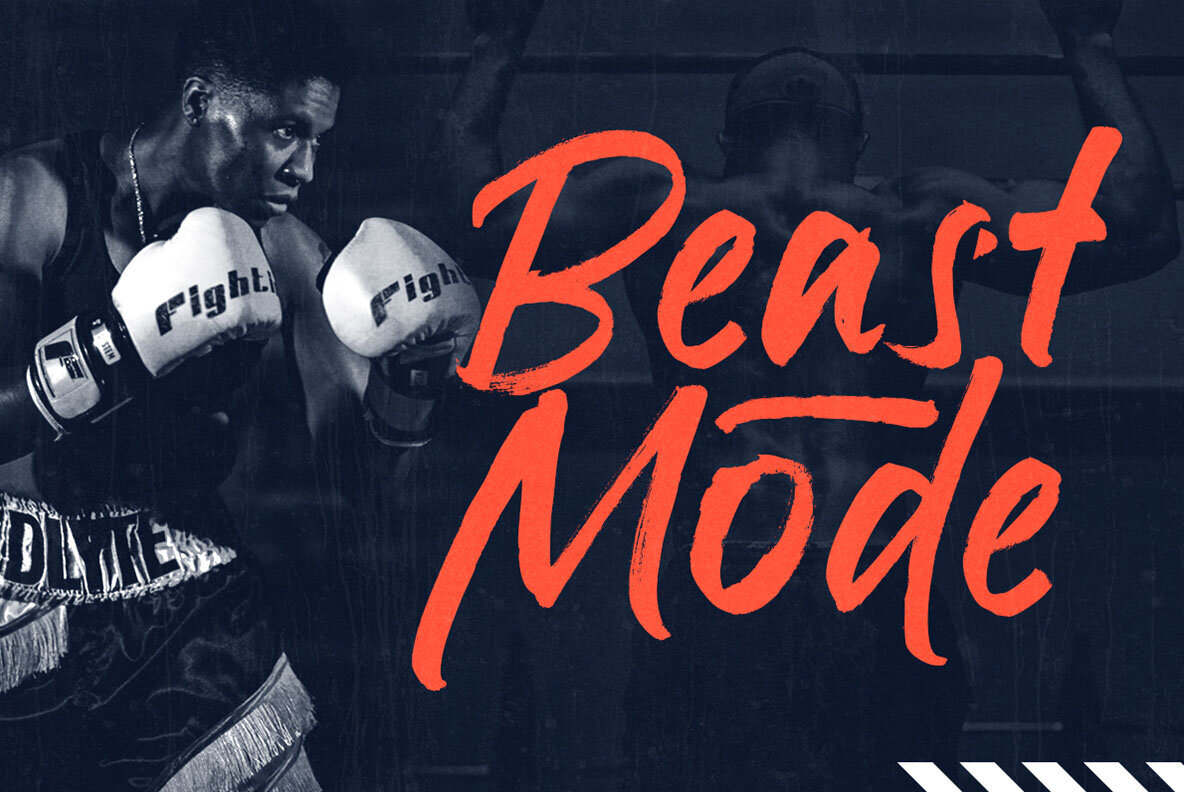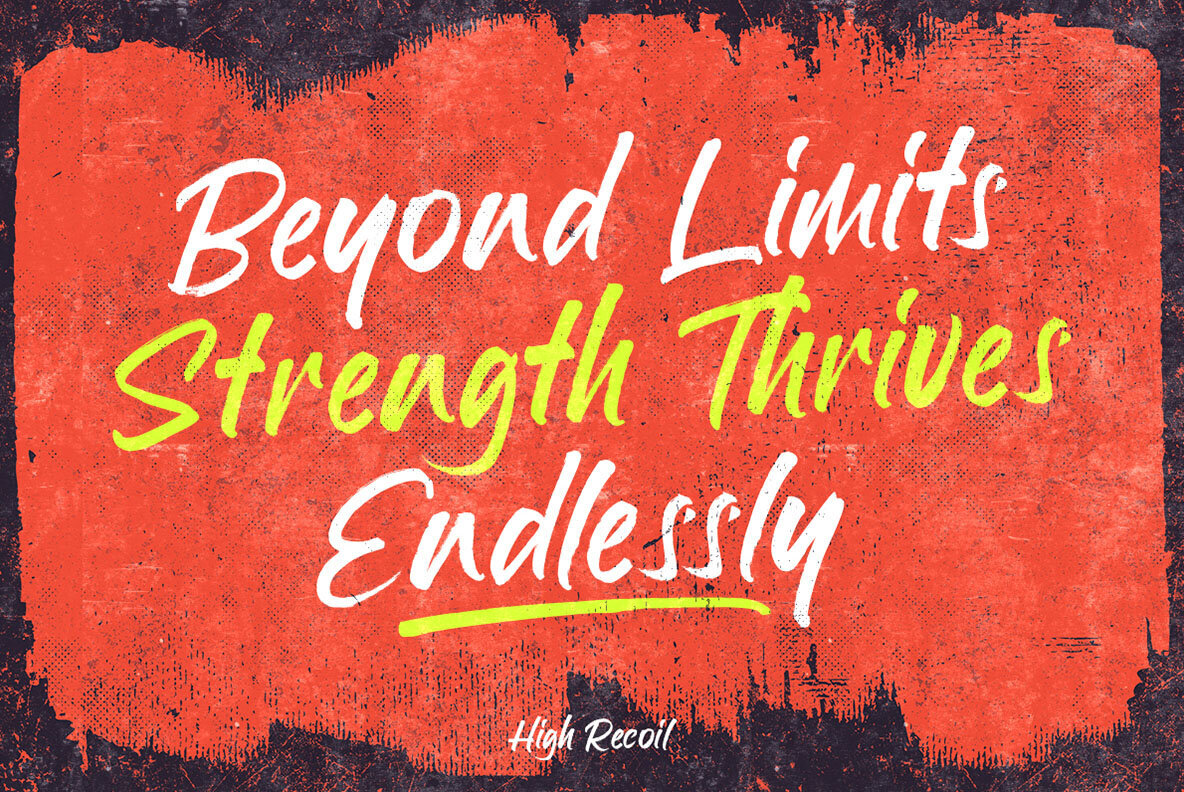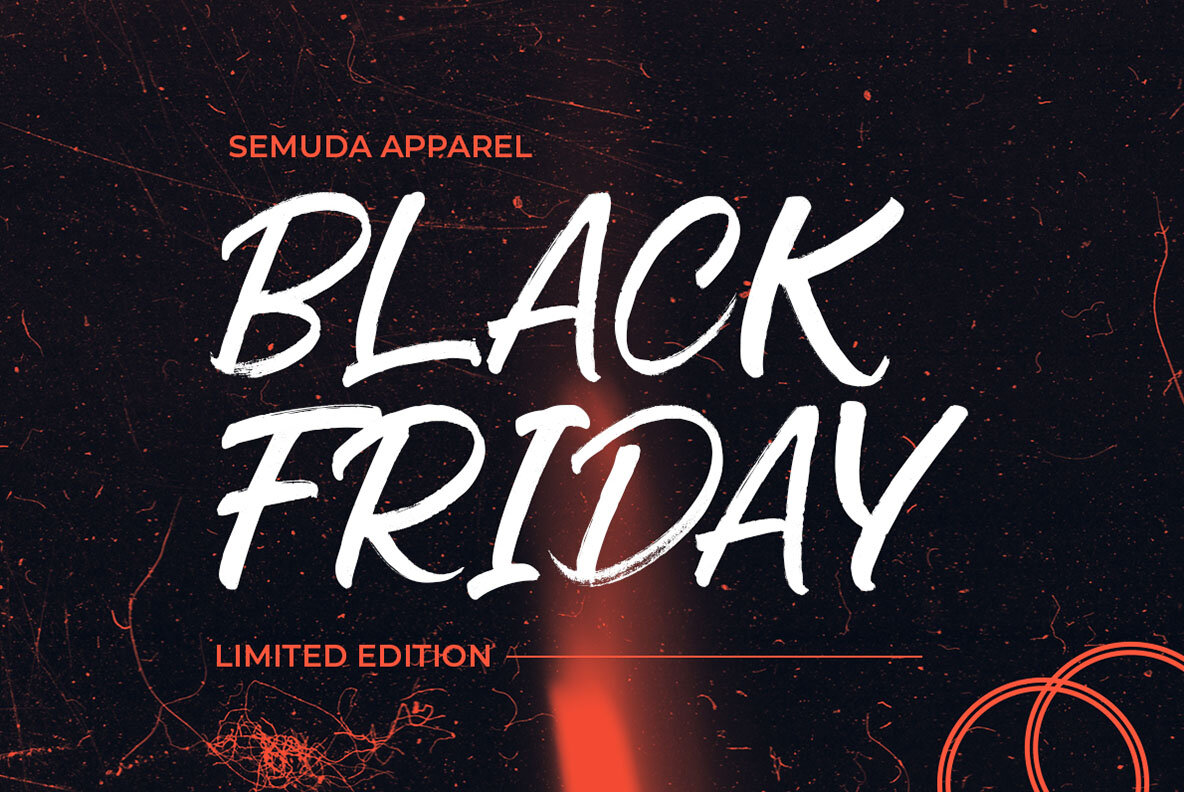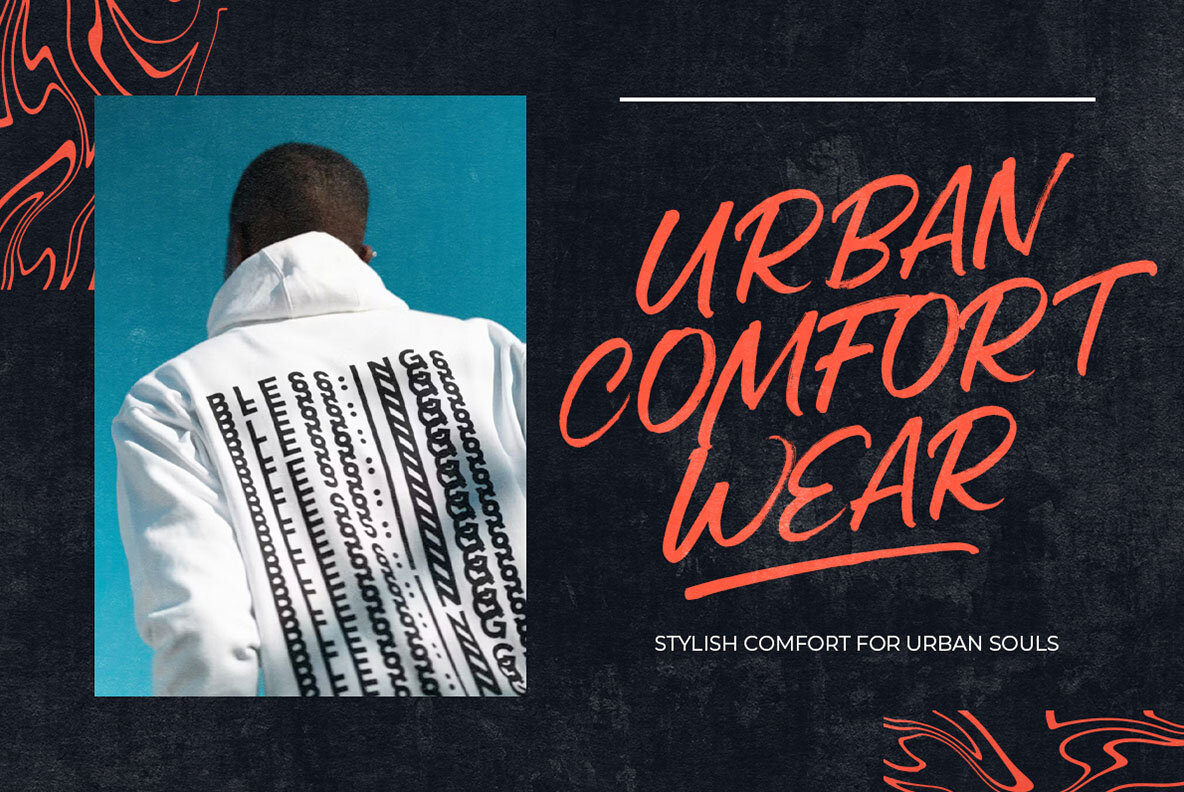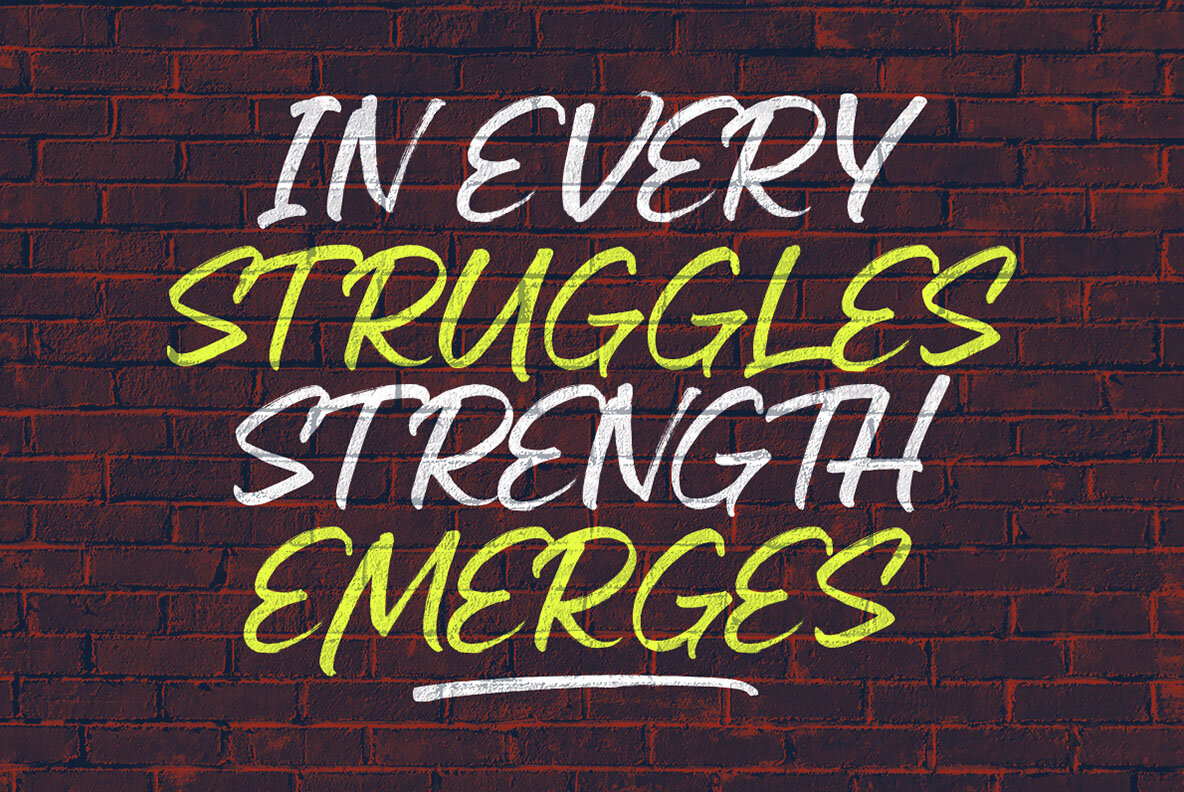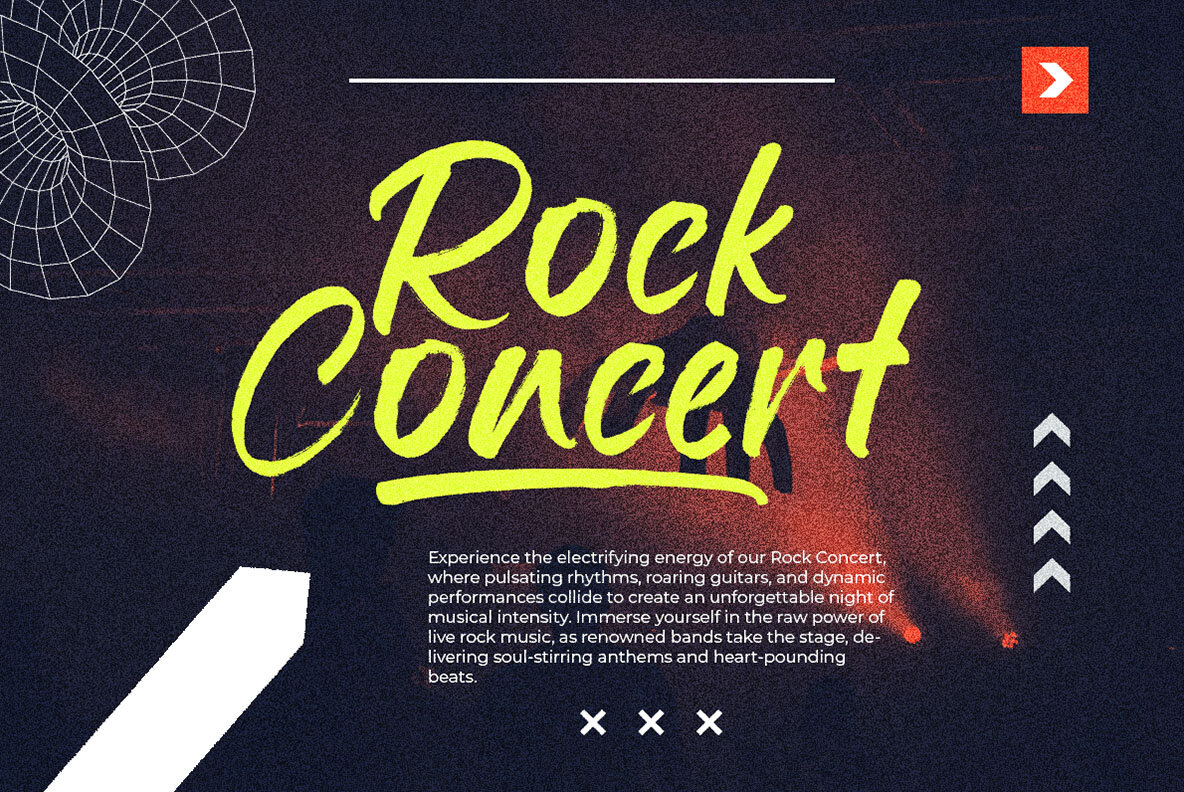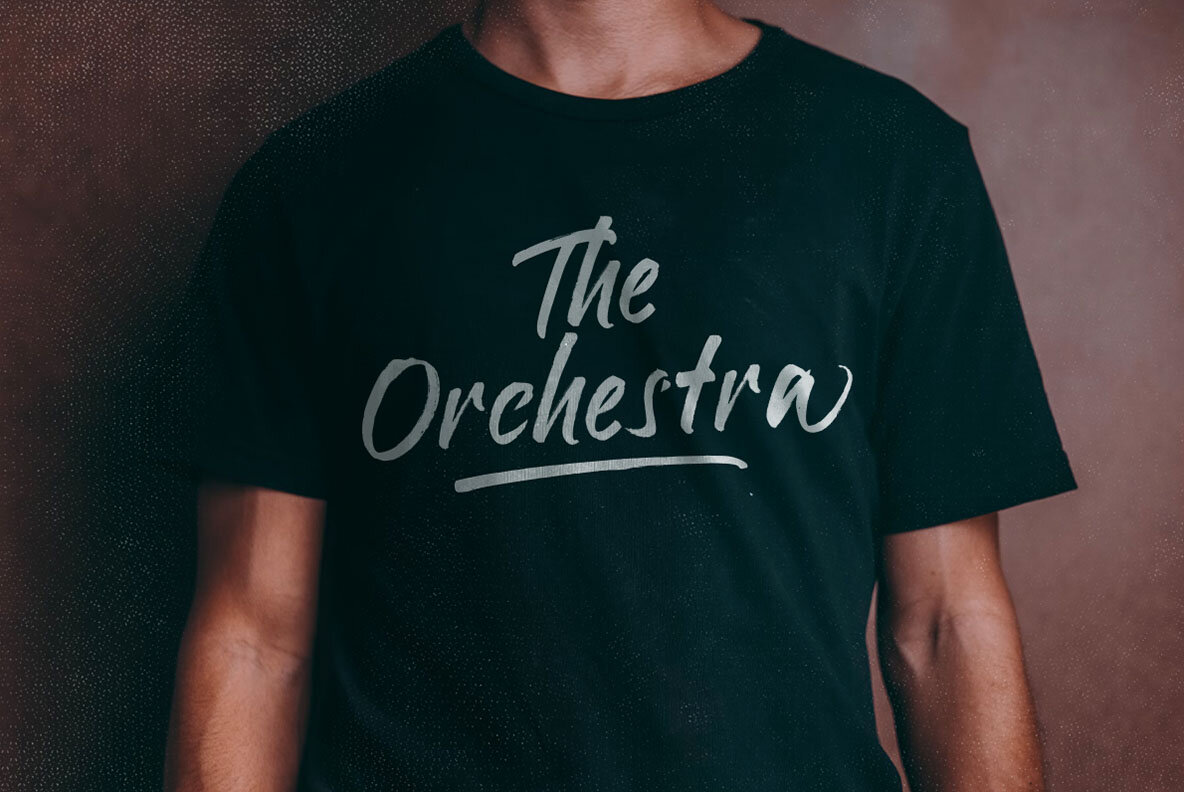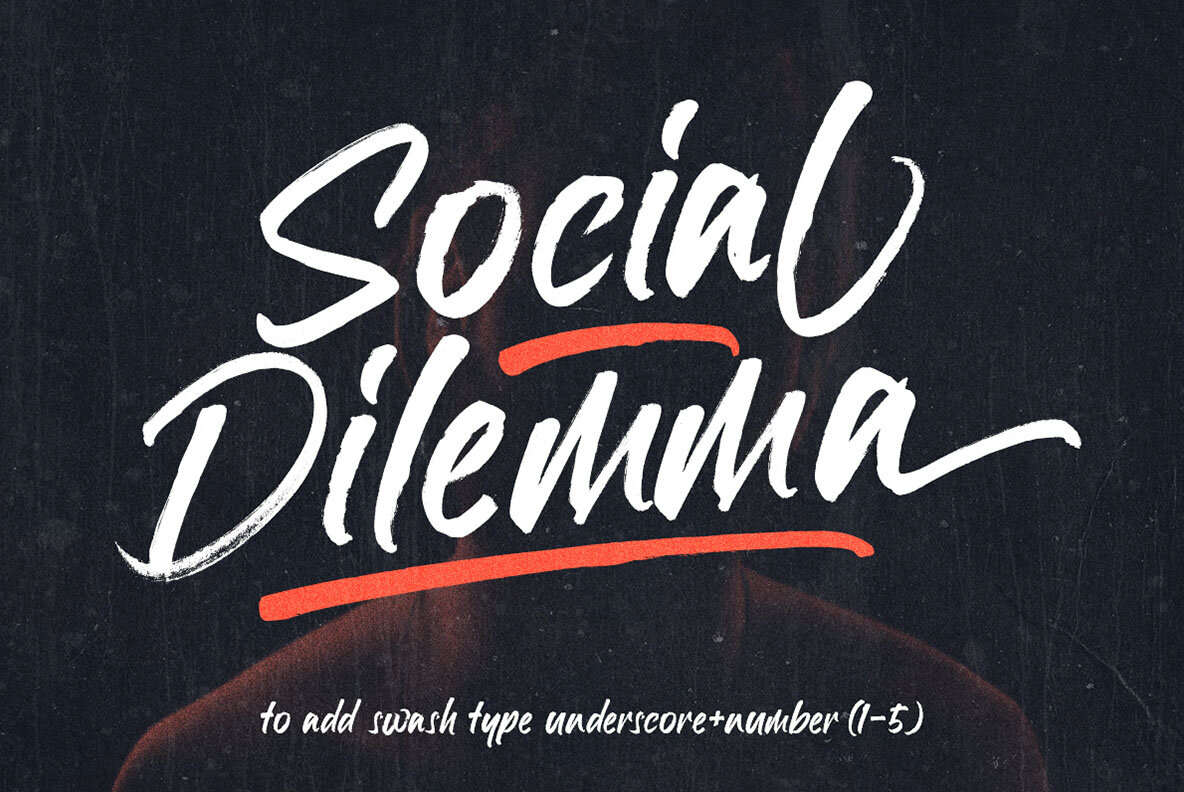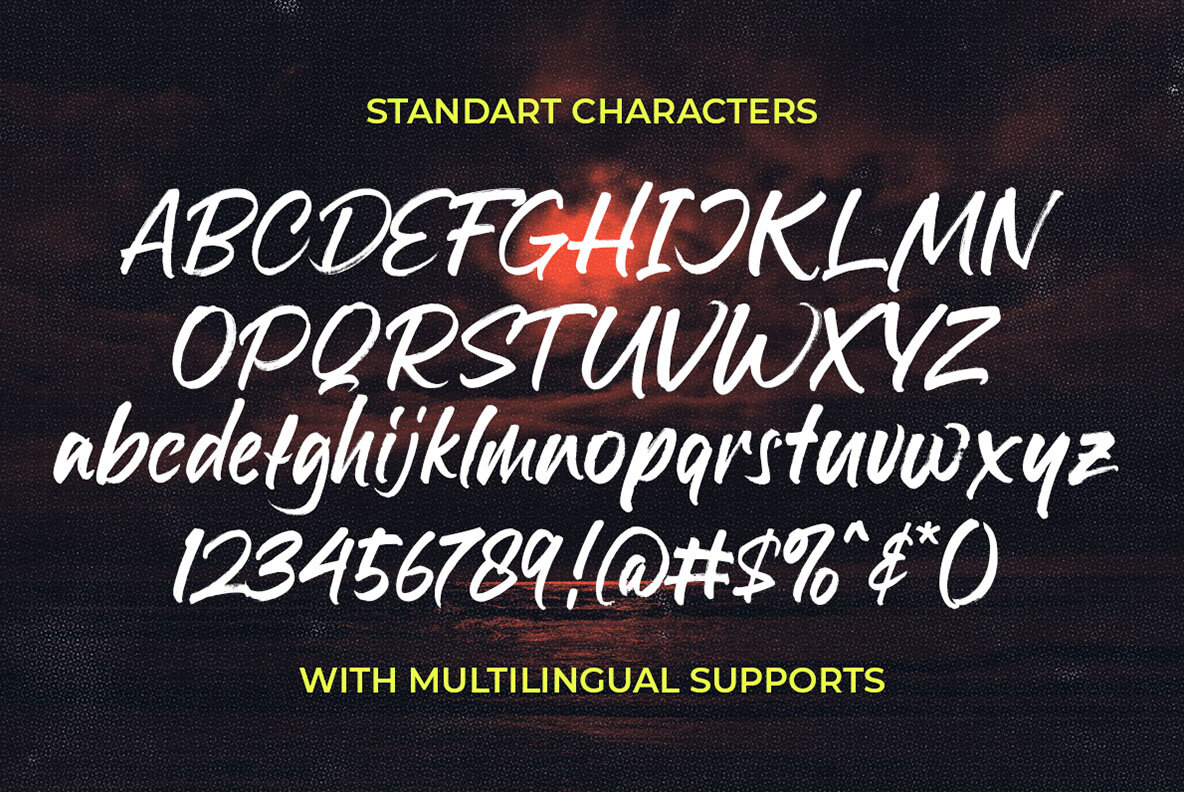
High Recoil Font
High Recoil Regular
High Recoil is a rough handwritten brush script featuring an organic texture. This font is particularly suitable for logos and various formal applications, such as invitations, labels, magazines, books, greeting cards, wedding stationery, packaging, fashion items, and more. It adds a distinctive flair to any advertising project. For the best experience, we recommend using software that supports OpenType features and Glyphs panels, like Adobe apps and Corel Draw, to fully access all Glyph variations.High Recoil: Textured Brush Script for Versatile Design